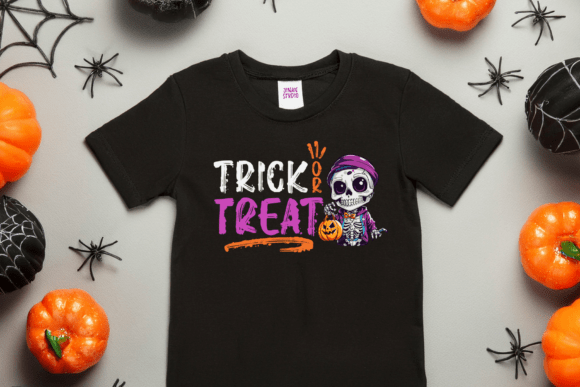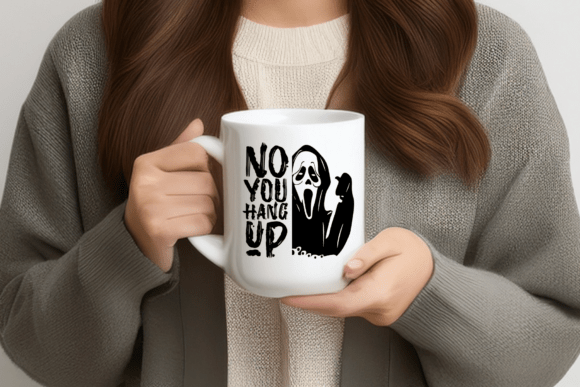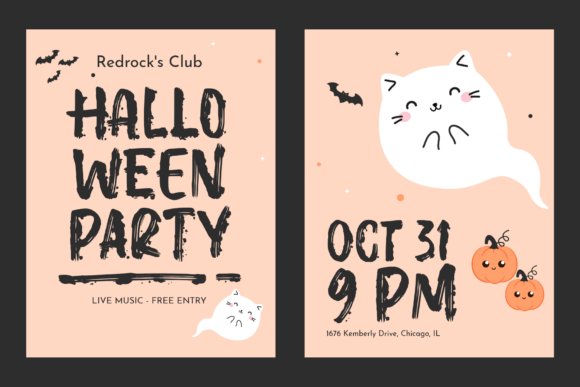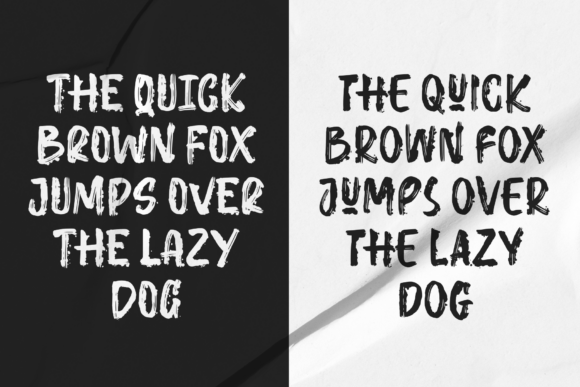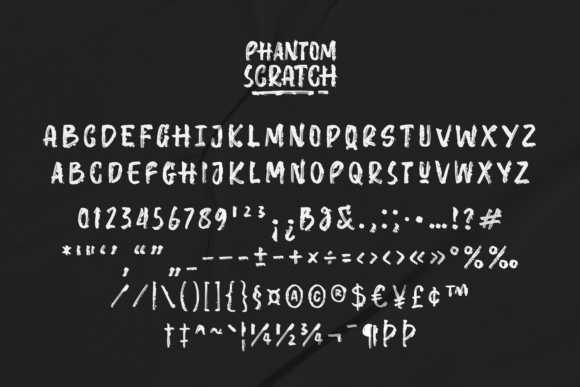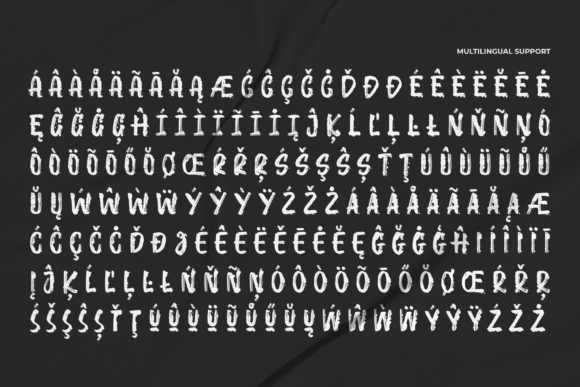
Unleashing the Power of Phantom Scratch Font
Do you remember the moment when you stumbled upon the perfect font to elevate your design project? It’s that instant rush of excitement, like finding a hidden treasure that sets your creative juices flowing. For many designers, that moment came when they discovered the Phantom Scratch Font. A wild brush display font with bold strokes and gritty textures, it’s the ultimate game-changer for any project that demands a raw and edgy vibe.
Whether you’re crafting a spooky Halloween design, creating a streetwear brand, or designing a music cover, Phantom Scratch Font is the perfect design resource to make your project stand out. Its handcrafted look adds instant drama and intensity, making it a valuable asset for any creative project. And the best part? It’s available for free download, ensuring that your designs remain high quality and professional, even with a transparent background.
- High-quality font designed for creative projects, ideal for use as a design resource.
- The font includes 100 glyphs, making it suitable for a wide range of creative applications.
- Designed to be highly versatile, Phantom Scratch Font can be used in a variety of creative projects, from digital art to print materials.
Honest Review: Phantom Scratch Font
As a designer, I’ve had my fair share of free fonts, but the Phantom Scratch Font has caught my attention. I downloaded it from a reputable source and was impressed by its high quality. The transparent background is a nice touch, allowing me to easily layer it over other design elements.
Here’s what I like about this font:
- ✨ Unique, hand-drawn style that adds a personal touch to any creative project.
- ✨ Supports a wide range of languages, making it suitable for international design projects.
- ⚠️ Limited font sizes and styles, which might not be suitable for complex design projects.
- ⚠️ Not as customizable as some other fonts, which can be a drawback for designers who like to fine-tune their typography.
Overall, I’m impressed by the Phantom Scratch Font’s unique style and high quality. While it may not be the most versatile font, it’s an excellent addition to any designer’s toolkit. Whether you’re working on a creative project or need a design resource, this font is definitely worth checking out.
The Phantom Scratch Font is a high-quality, free download that’s perfect for any creative project. With its unique design and transparent background, it’s a versatile design resource that can add a touch of elegance to your work.
To get the most out of the Phantom Scratch Font, try using it with other design elements to create a cohesive look. You can also experiment with different font sizes and colors to add emphasis to your text.
The Phantom Scratch Font is perfect for use in a variety of projects, including:
- Business cards and brochures.
- Blog posts and articles.